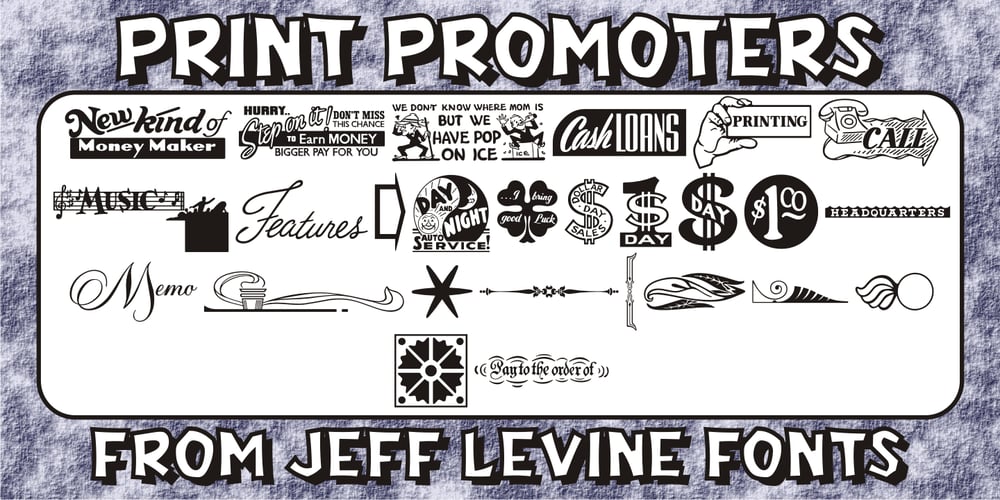
Print Promoters JNL Font Family was designed by Jeff Levine and published by Jeff Levine. Print Promoters JNL contains 1 styles and family package options. Print Promoters JNL is another batch of classic dingbats re-drawn from vintage source material. This collection features stock words and phrases with a few decorative embellishments thrown in for good measure.